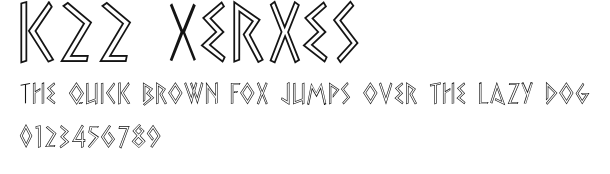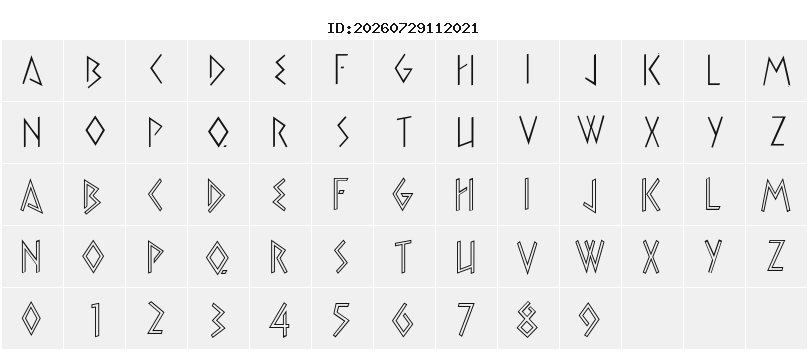
• Font Name: k22 Xerxes
• Full Font Name: k22 Xerxes
• Copyright: Created by Toto from outlines by Dan X. Solo
• Designer: Cesar I. Gulmatico Jr.
• Manufacturer: Toto
• Description: k22 Xerxes is a modification of Xerxes by Dan X. Solo, which came from the Special FX set published by Dover Publications. Outlines originally by Dan X. Solo. k22 Xerxes is freeware and should not be sold nor included in free font compilations, whether in diskette, CD, font packs and the like, without expressed permission. Enjoy! Toto (toto@fastrun.at) 11 August 2003
k22 Xerxes.ttf is a modern, elegant sans-serif font designed for ultimate readability and visual harmony. Perfect for branding, headlines, web design, and print materials.